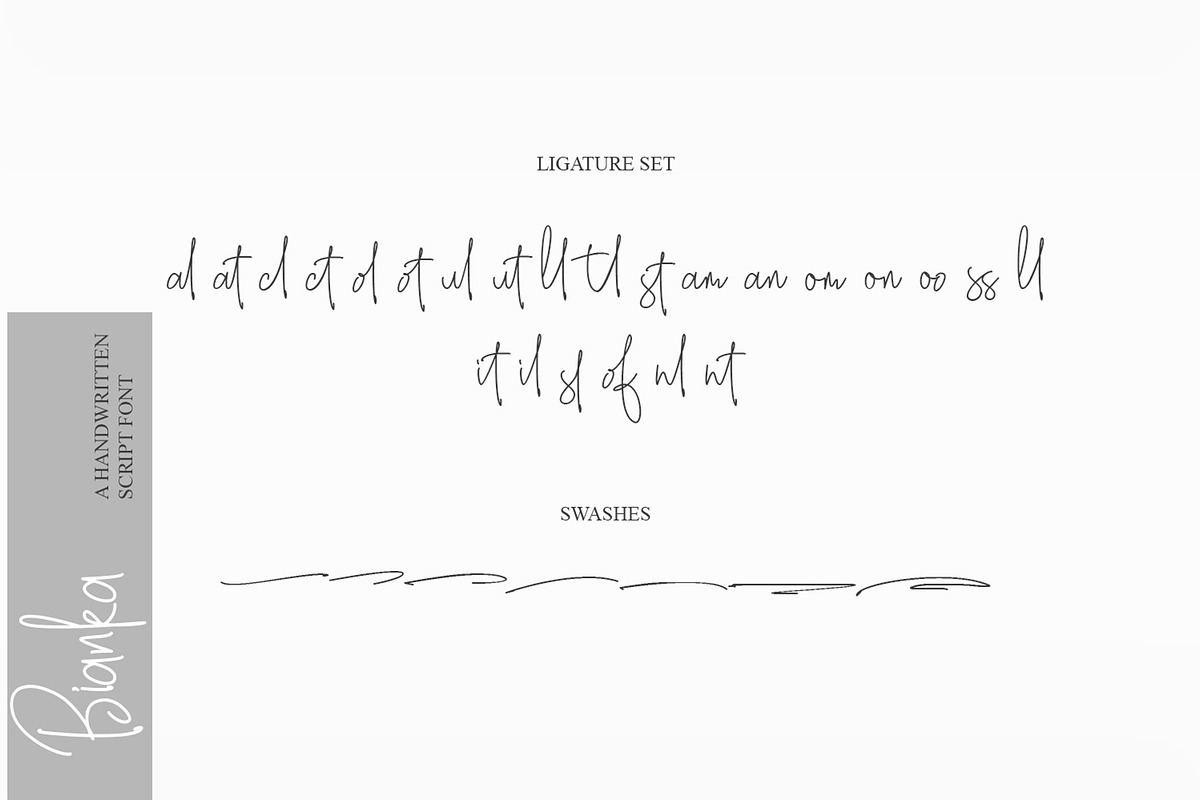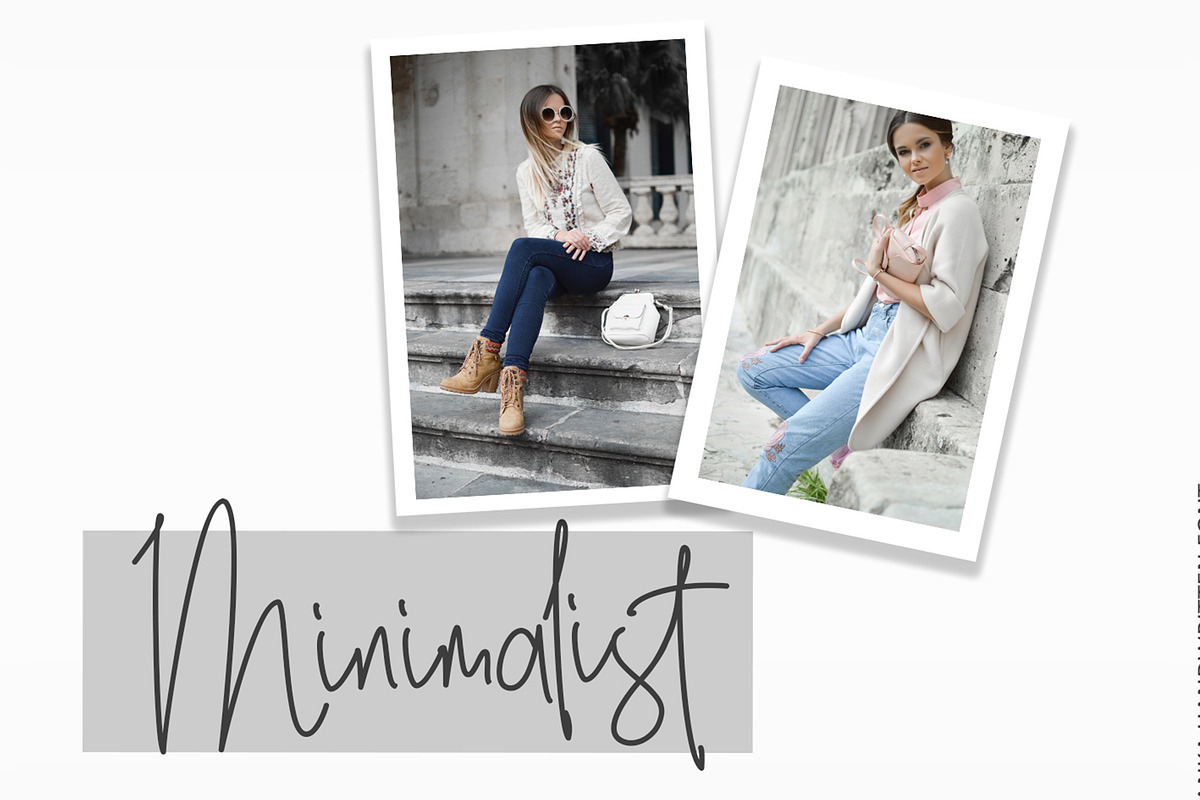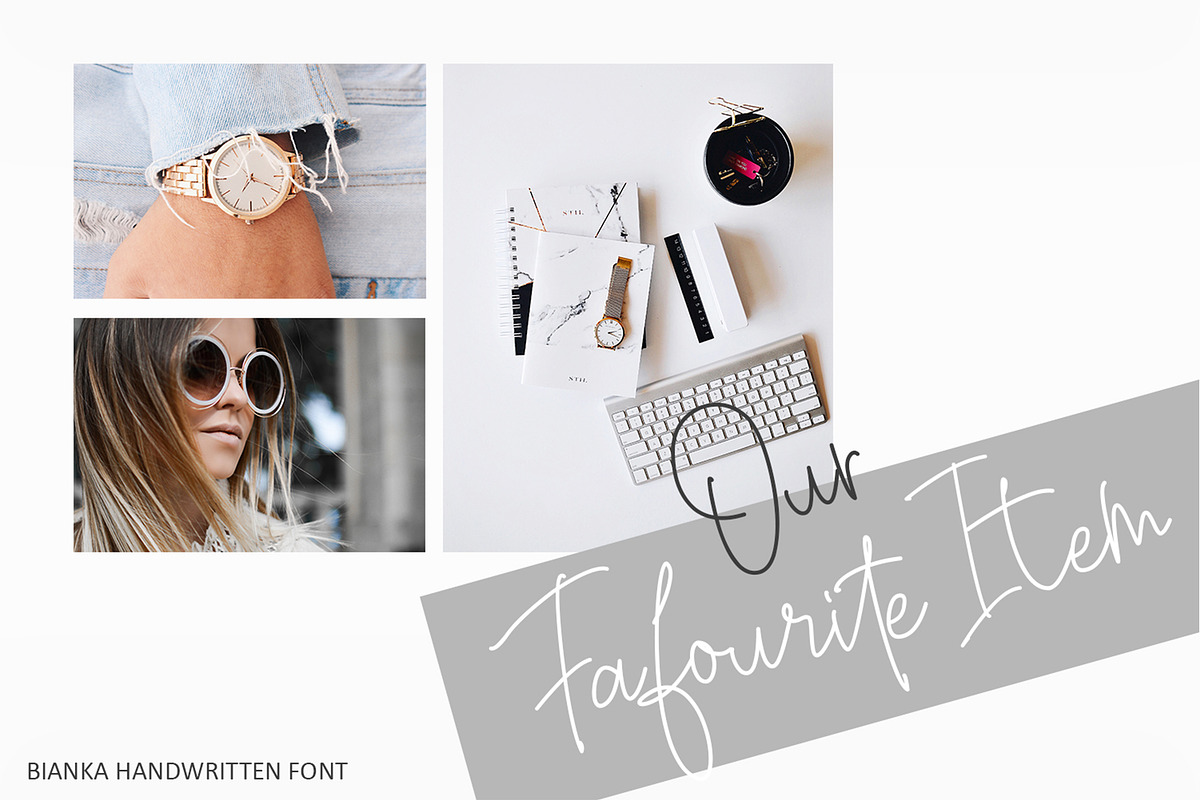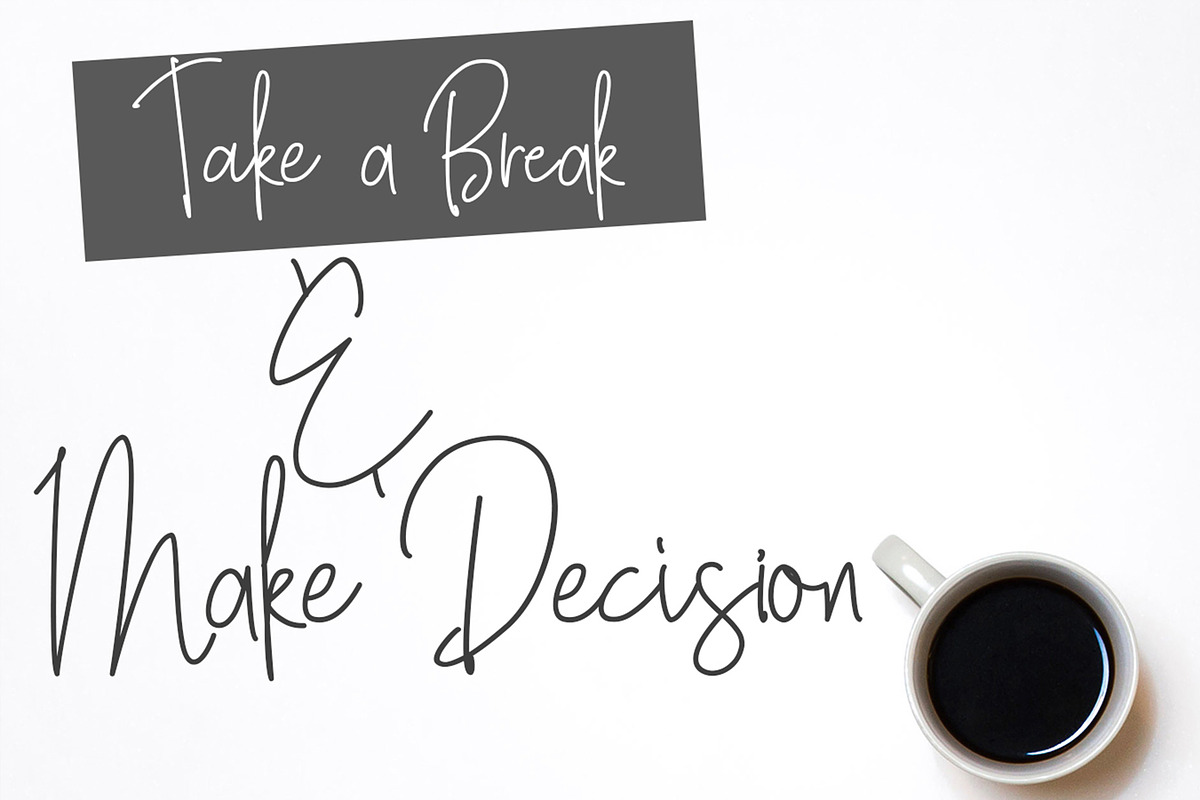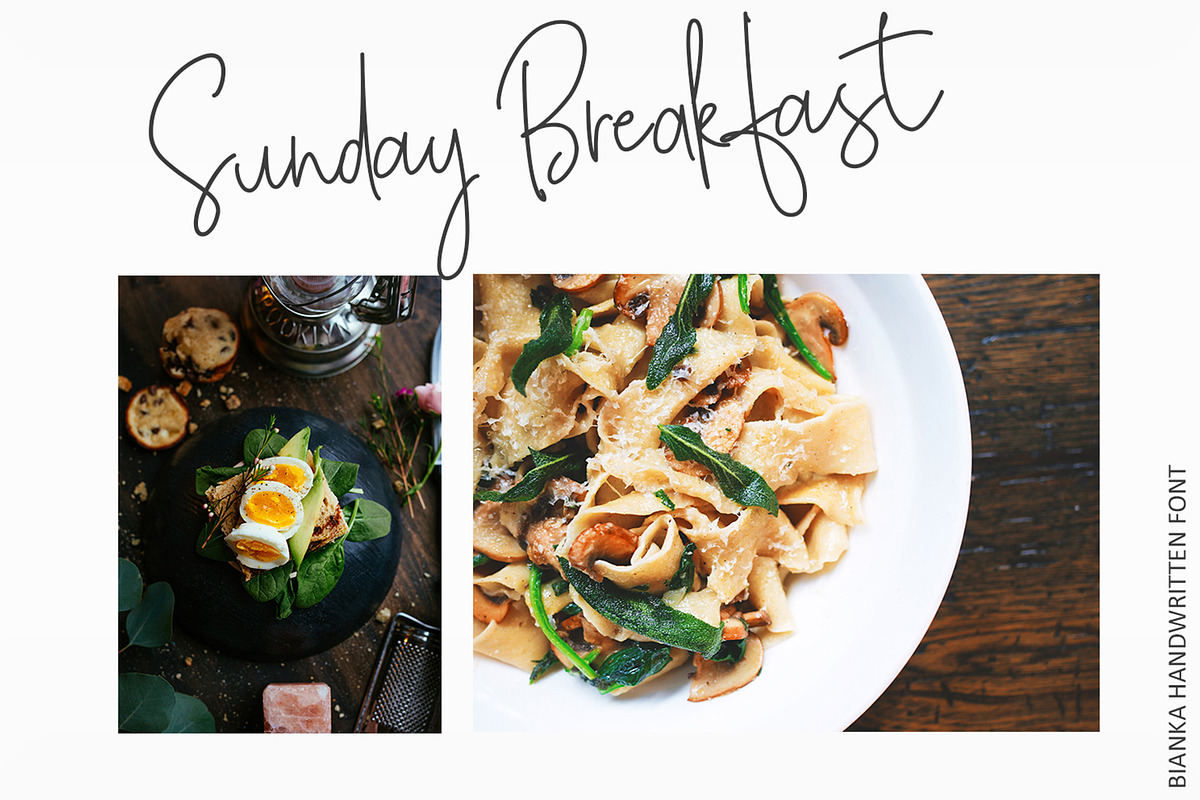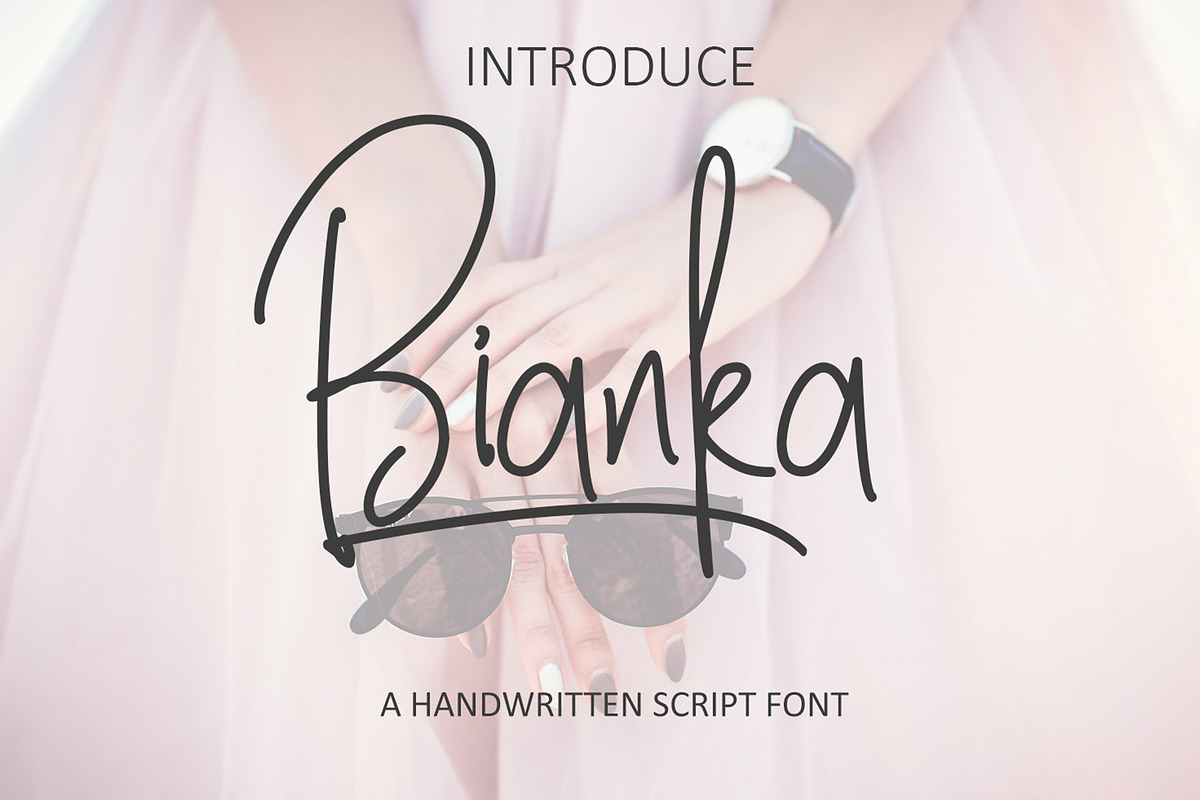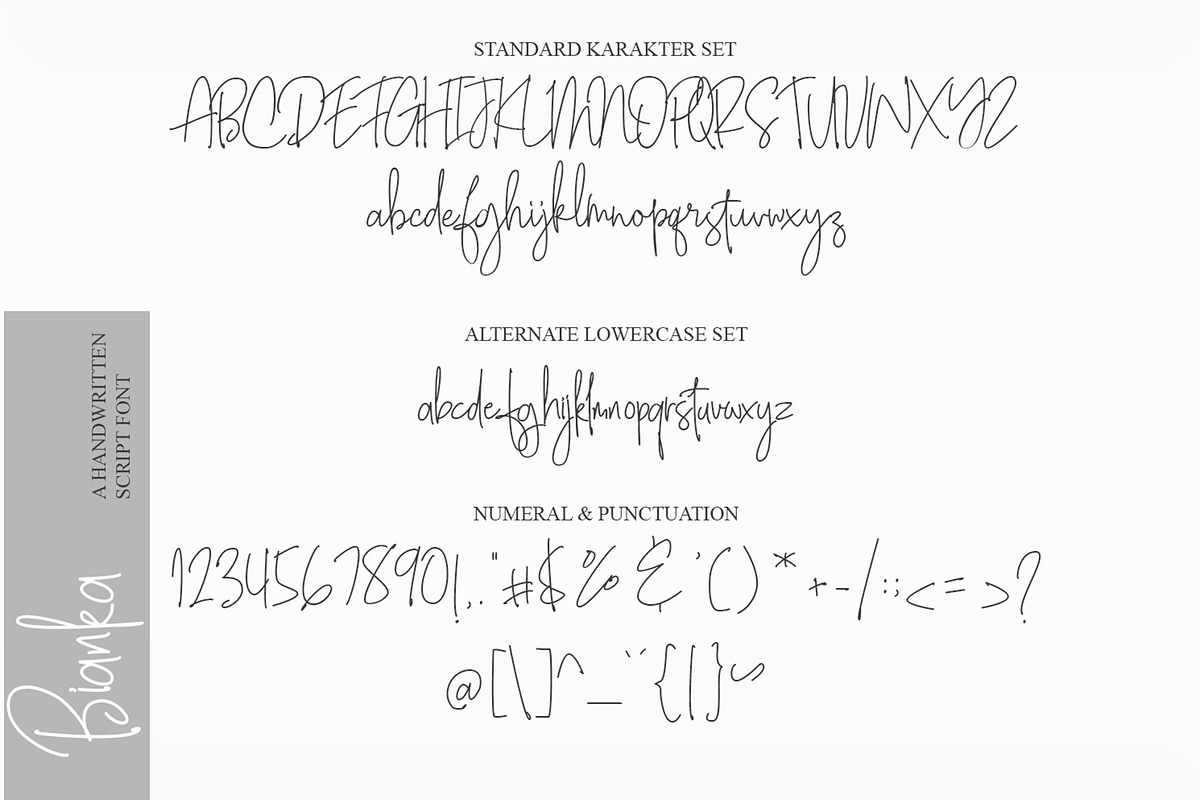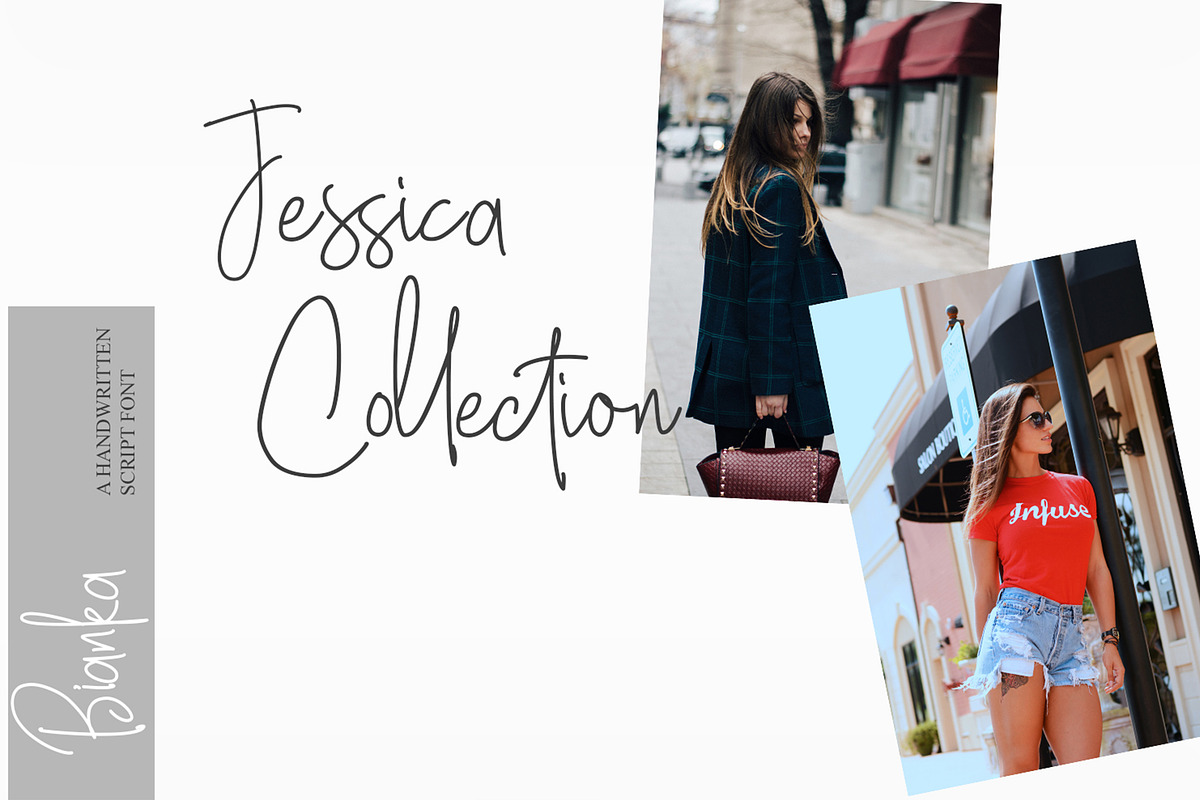
Bianka - Handwritten Font
Hello, we are proud to present our new font bianka script. an handwritten font with monoline style. It will be very suitable for Logos, Social Media, Print Products, Websites, Branding, Invitations.
It comes with over 250 glips, with alternate, ligature and swash features that will be very much in line with your design project.
opentype feature (alternate, ligature, swash)